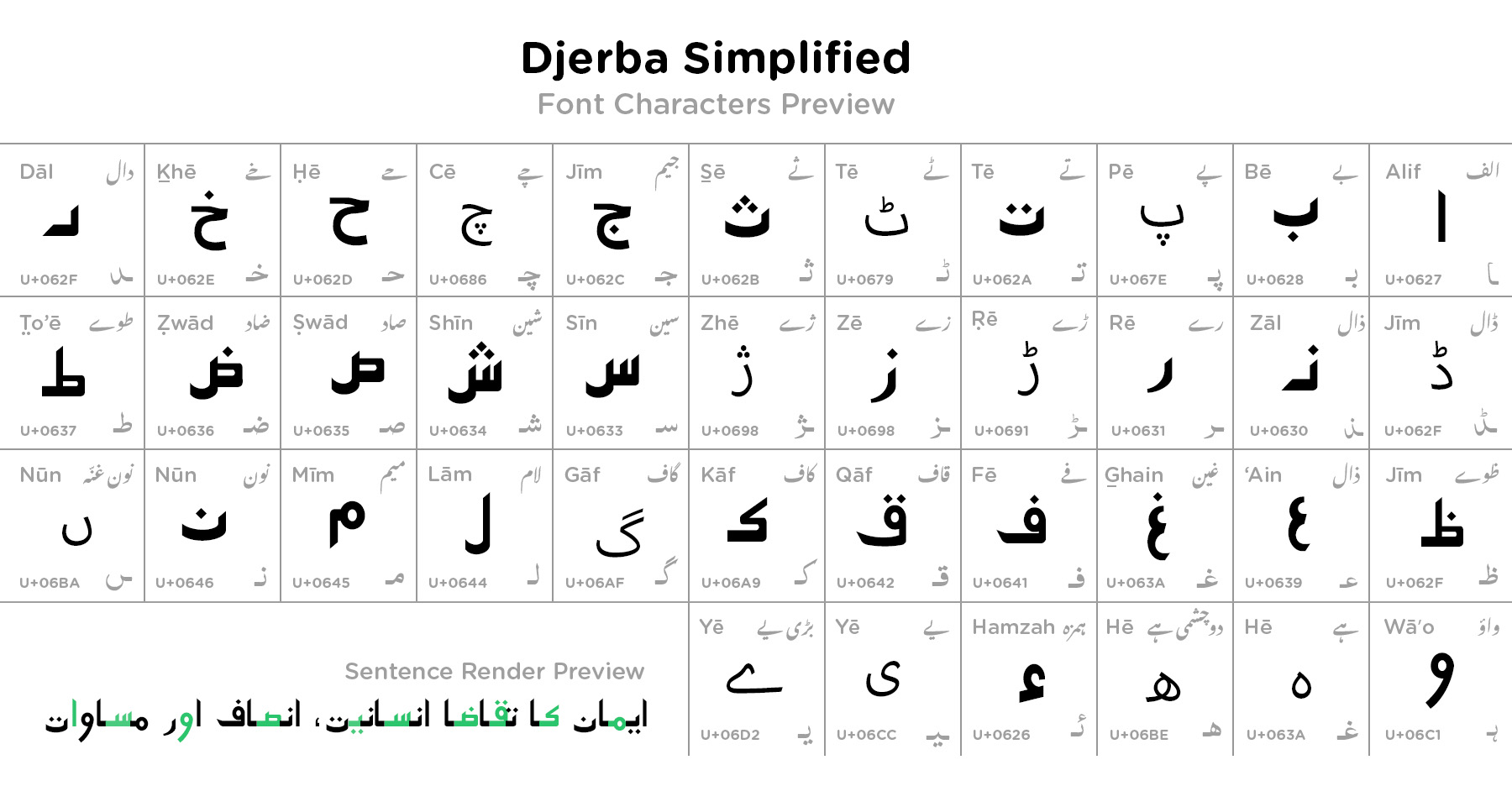
Djerba Simplified, crafted by font designer Peter Wiegel, is a regular Arabic font released in 2016, inspired by the traditional Naskh script. With 386 characters, symbols, and 194 glyphs, it is compatible with various languages and Unicode blocks, including Basic Latin, Latin-1 Supplement, and Private Area Use. Characterized by its plain design, slightly rounded curves, pointy tails, and constant thickness, Djerba Simplified prioritizes legibility and simplicity. Its medium font weight further enhances its readability, making it suitable for both long and short text blocks, even at smaller sizes.
With strong and impactful strokes, it maintains a professional and straightforward appearance, ideal for literary projects such as books, newspapers, and magazines. Its emphasis on clear letter shapes, well-defined spacing, and consistent thickness ensures readability and versatility across different applications, while its lack of embellishments adds to its plain yet effective aesthetic. Whether for extended text reading or short headlines, this font delivers clear and legible text suitable for various print and digital media applications.